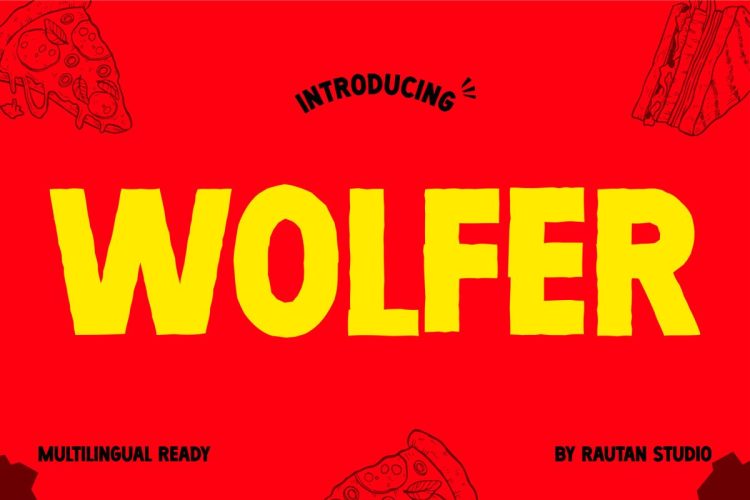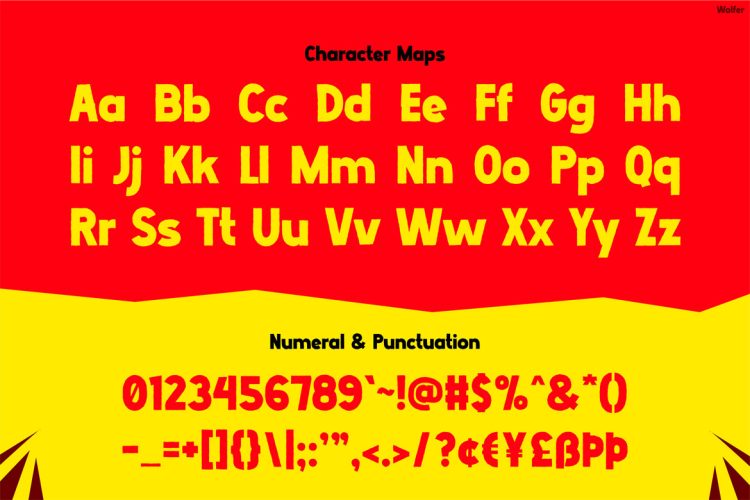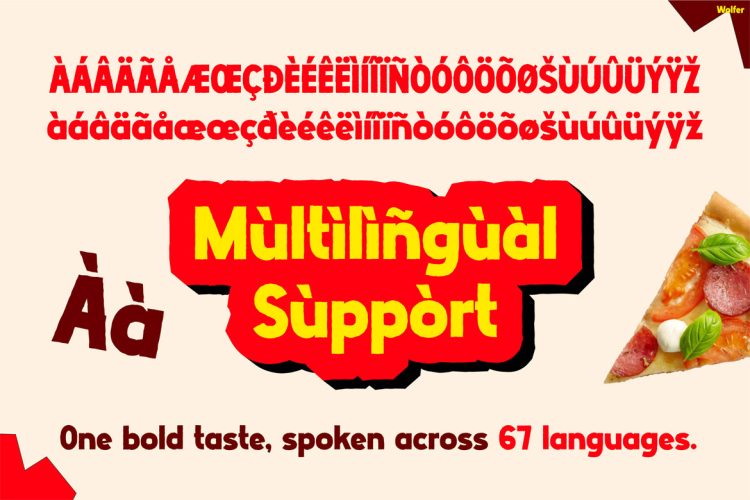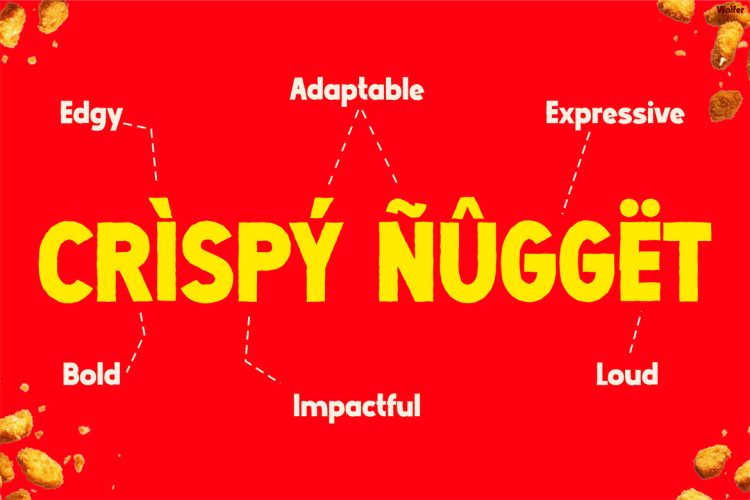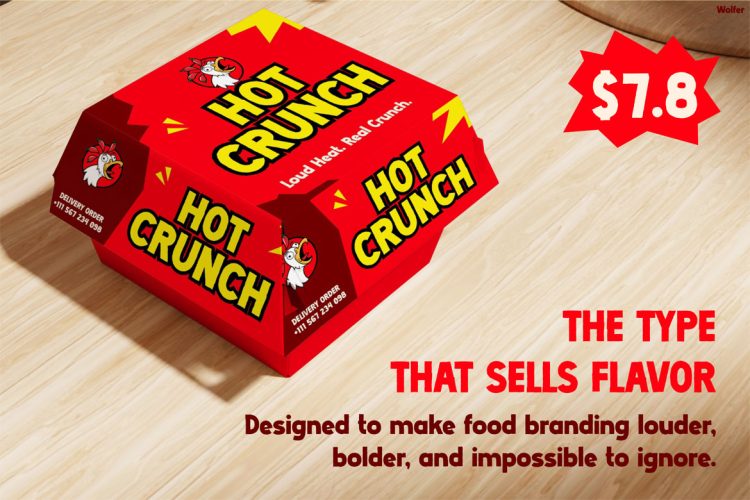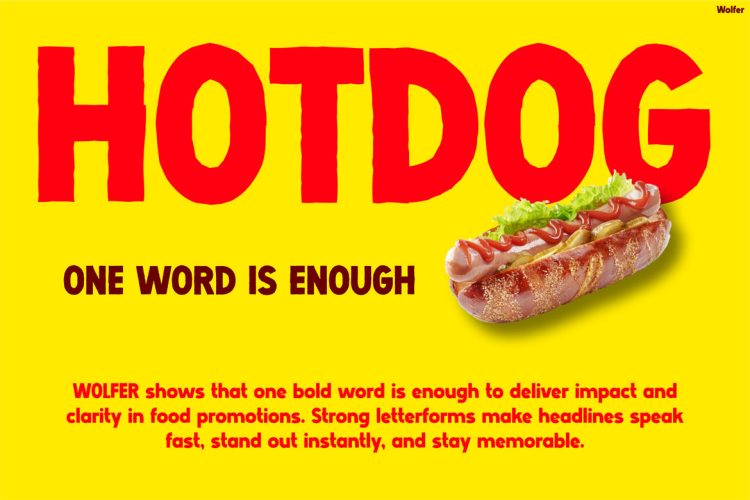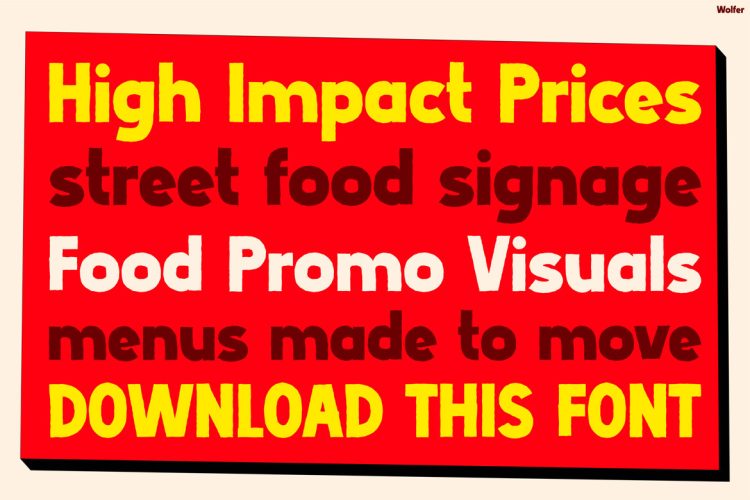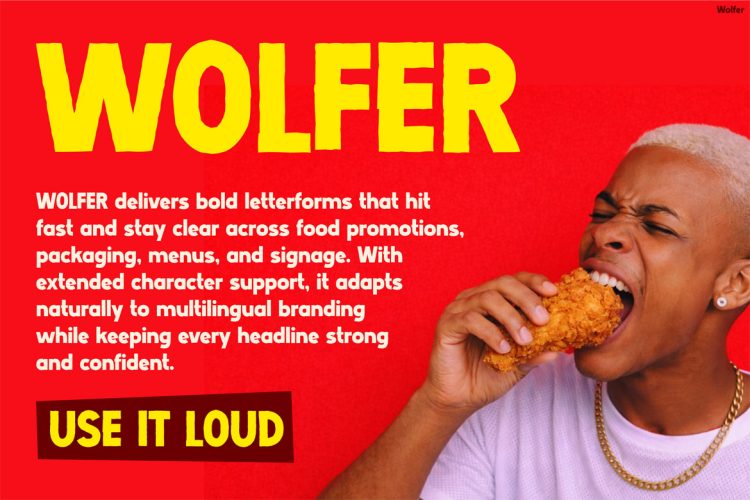
Instagram Font WOLFER โ Loud Flavor, Bold Letters, Street-Ready Energy
Instagram Font WOLFER bursts onto the screen with unapologetic confidence inspired by street food culture, bold price boards, and high-impact promo visuals. From the first glance, this typeface delivers a strong visual punch through thick strokes, compact proportions, and high-contrast shapes. Moreover, chunky letterforms and tight spacing command attention instantly, even from a distance. As a result, WOLFER thrives in fast-paced visual spaces where clarity and impact matter most. The aesthetic feels loud, playful, and fearless, yet it stays readable and structured. Because of this balance, designers can confidently use WOLFER for both digital screens and printed materials. In addition, its energetic personality helps messages feel urgent, exciting, and impossible to ignore.
WOLFER is a bold display typeface that amplifies messages designed to sell, shout, and stand out. It features heavy uppercase letterforms, strong geometry, and expressive curves that create a powerful visual rhythm. Furthermore, the font performs exceptionally well in headlines, price tags, menus, and promotional banners where space feels limited but visibility remains critical. Its visual weight makes even short words feel impactful. At the same time, consistent proportions keep layouts clean and controlled. With support for 67 languages, WOLFER empowers global brands, multilingual campaigns, and international social media content. Therefore, creators gain a reliable tool that delivers bold visuals without sacrificing usability.
Instagram Font WOLFER suits street food brands, fast-food packaging, cafรฉ menus, and restaurant signage perfectly. Additionally, designers can use it for Instagram posts, food promos, discount banners, and high-impact ads. Content creators, graphic designers, and brand owners benefit from its loud personality and instant readability. Moreover, youth-focused brands, pop-up events, festival visuals, and bold editorial headlines gain extra energy from its presence. When your audience needs to notice a message in seconds, WOLFER provides that advantage.